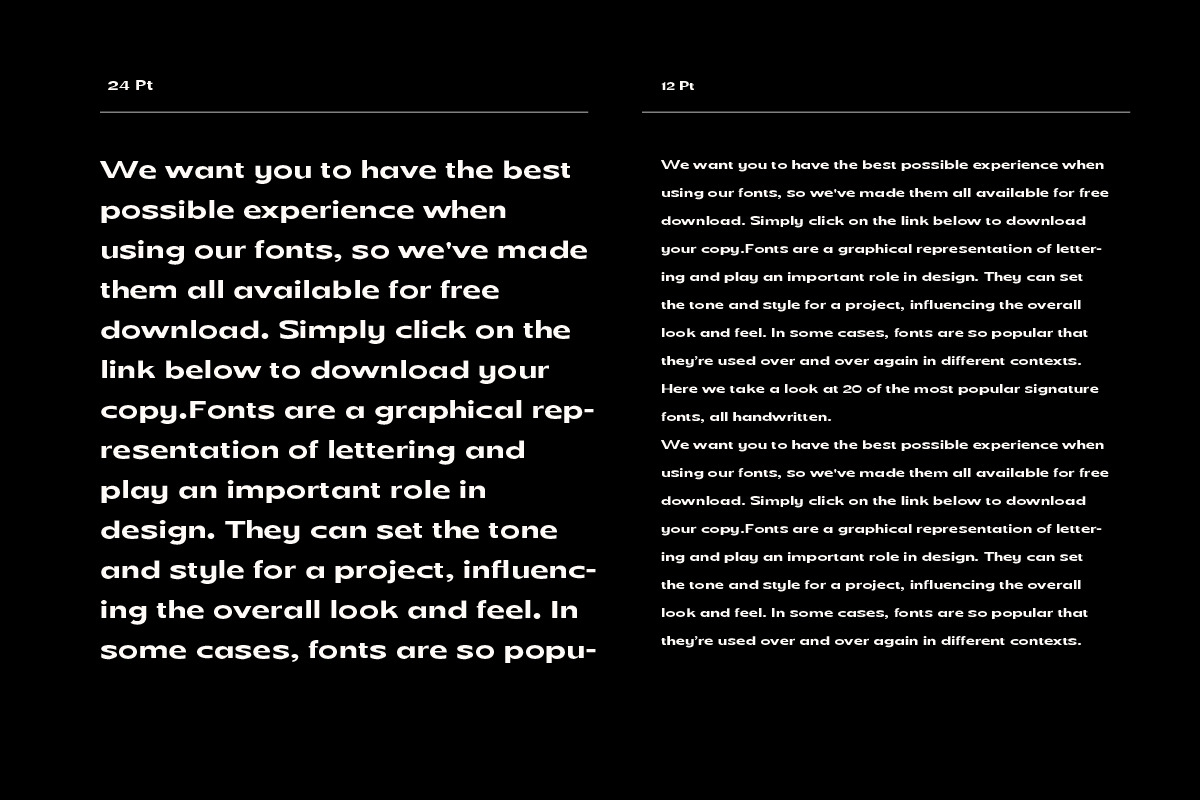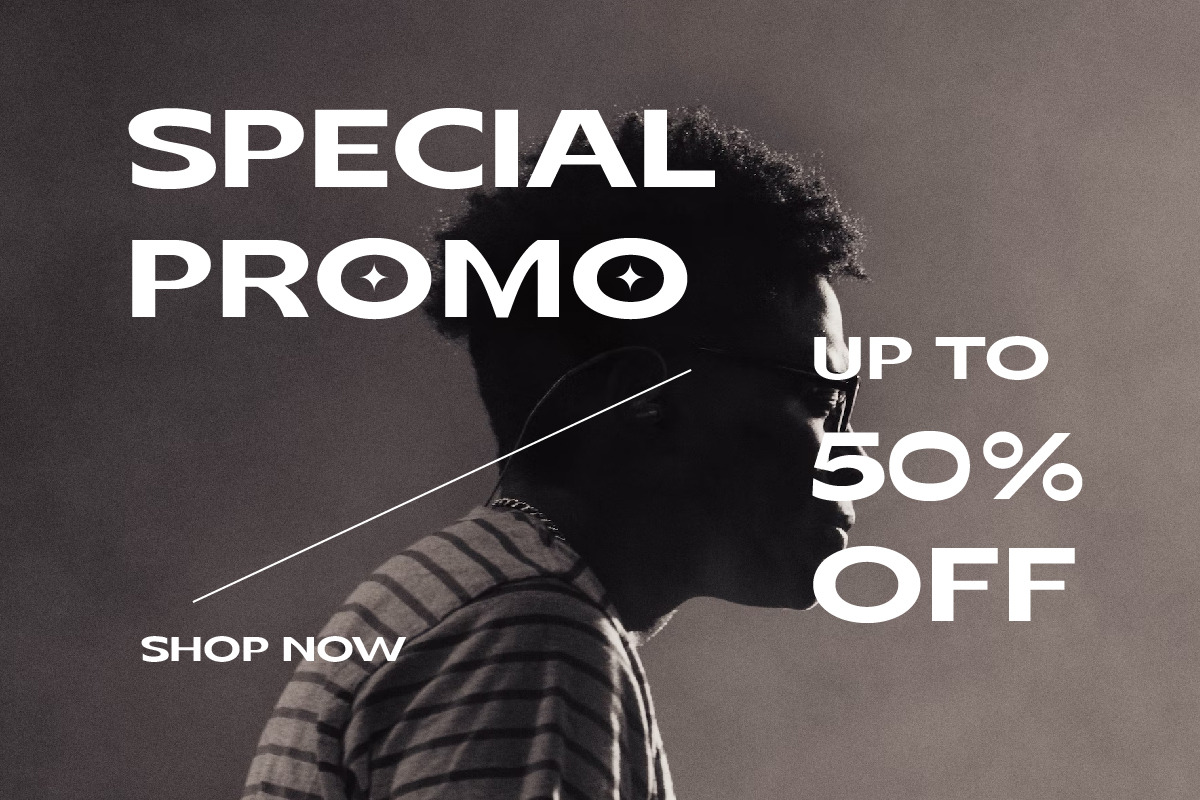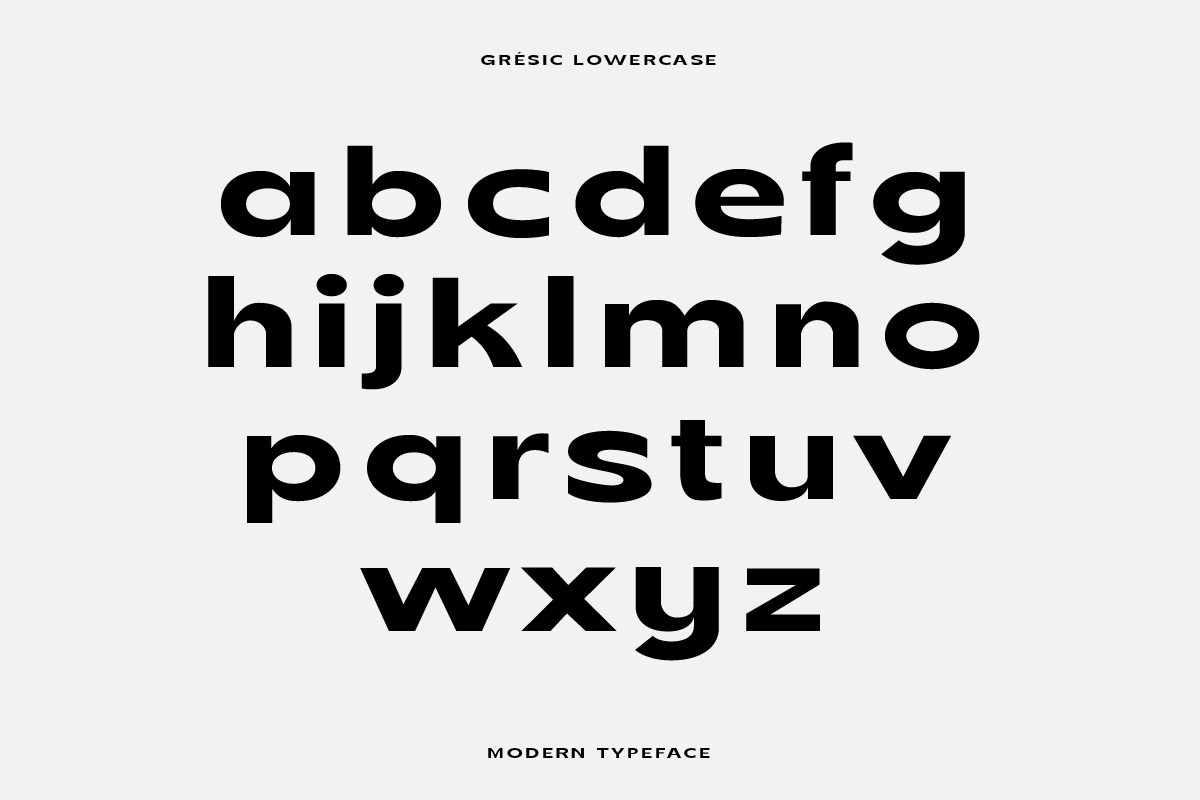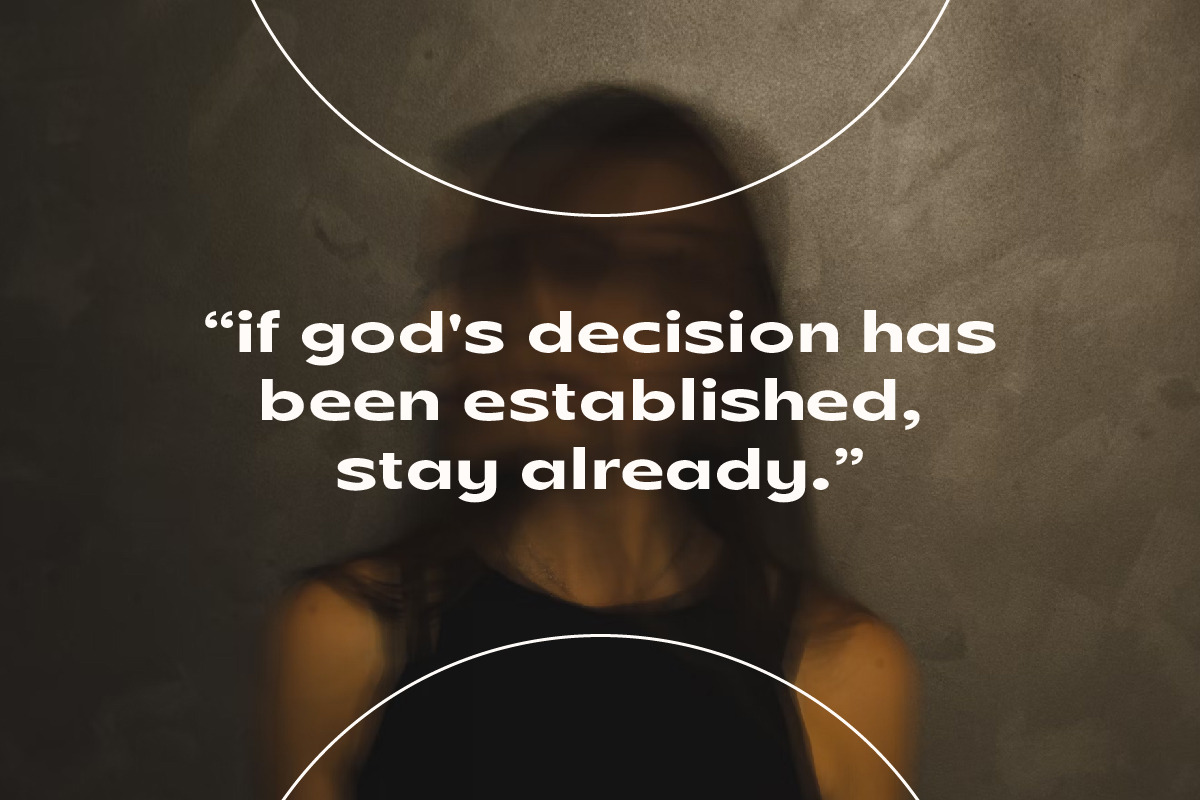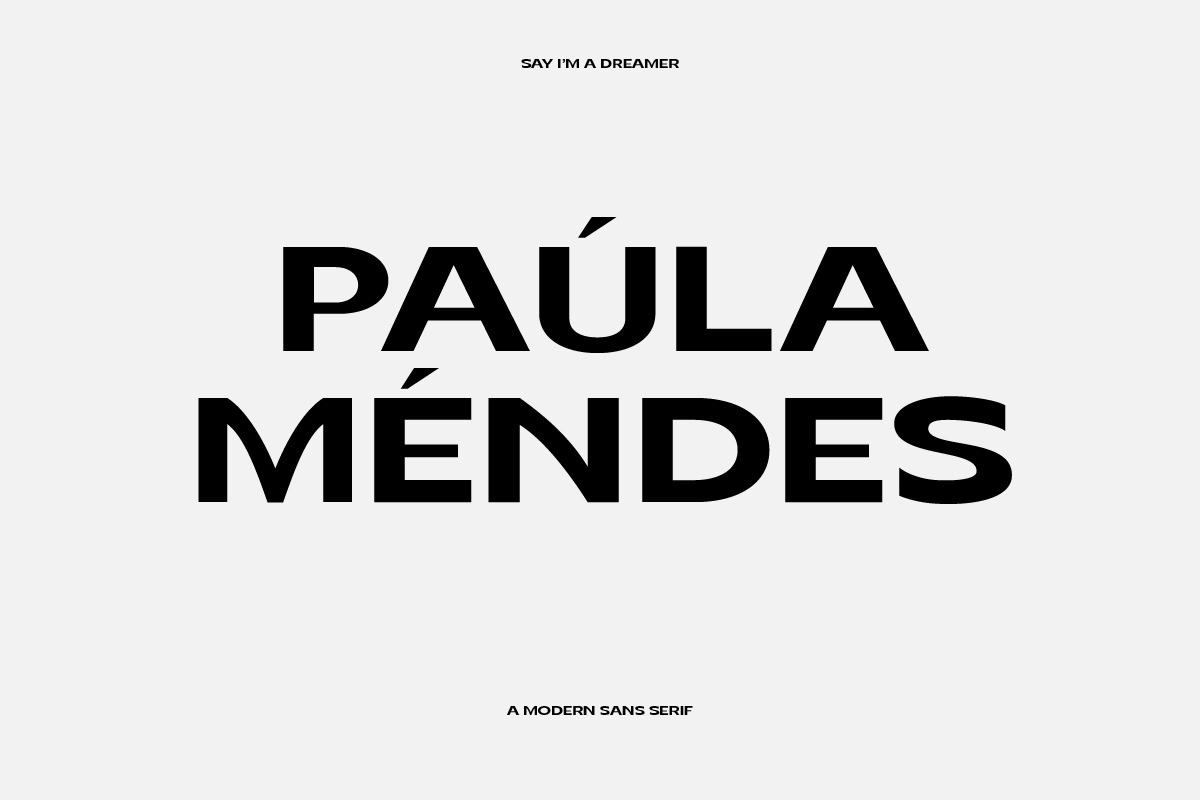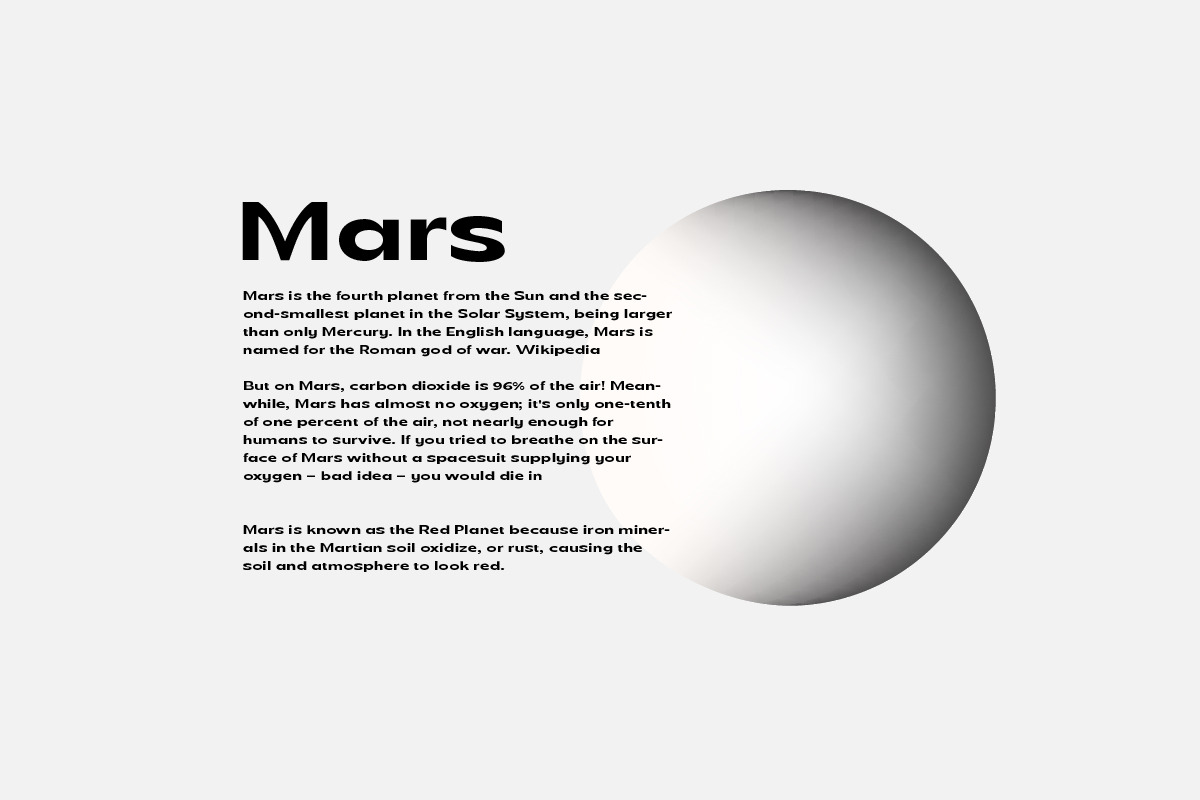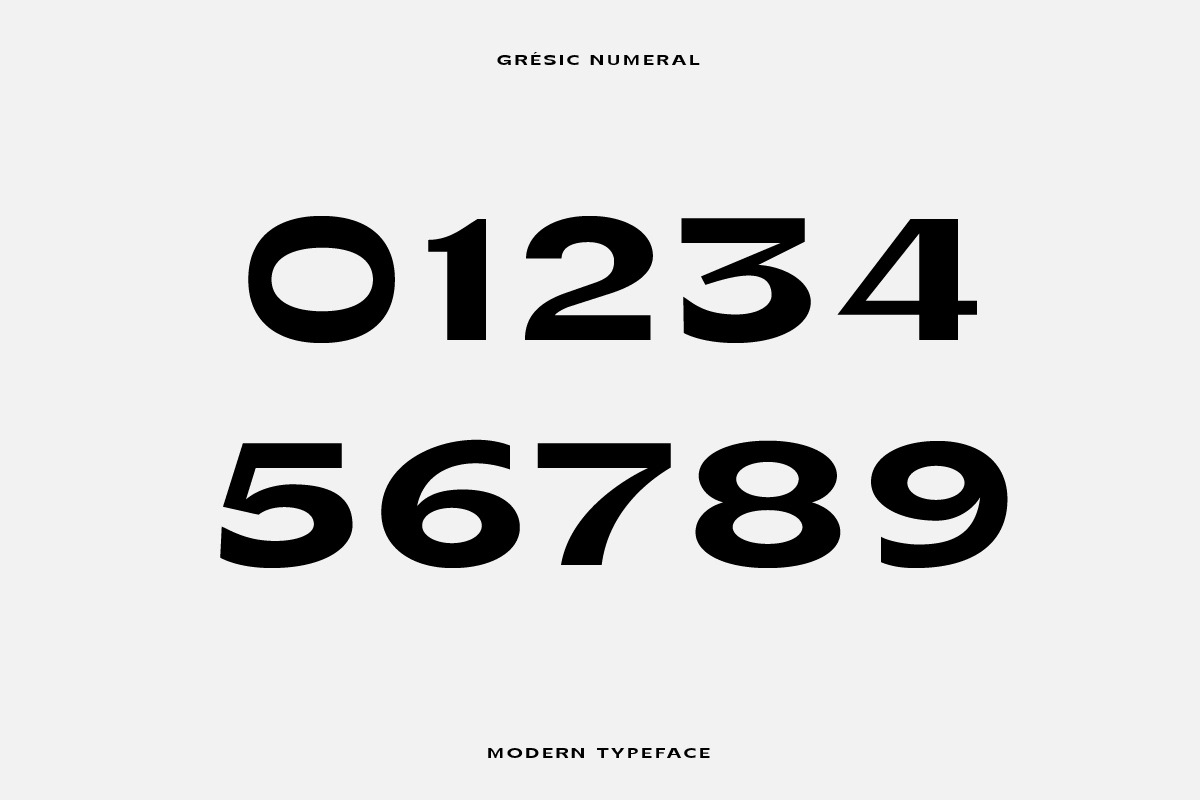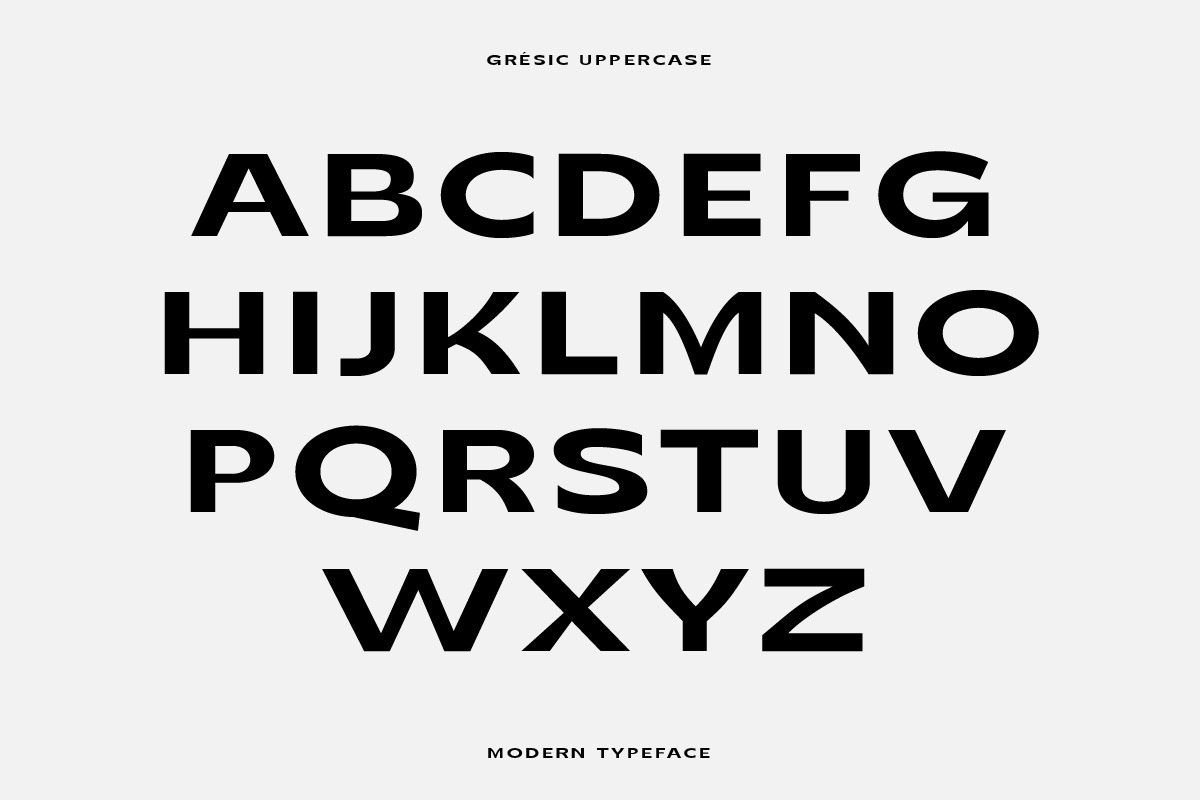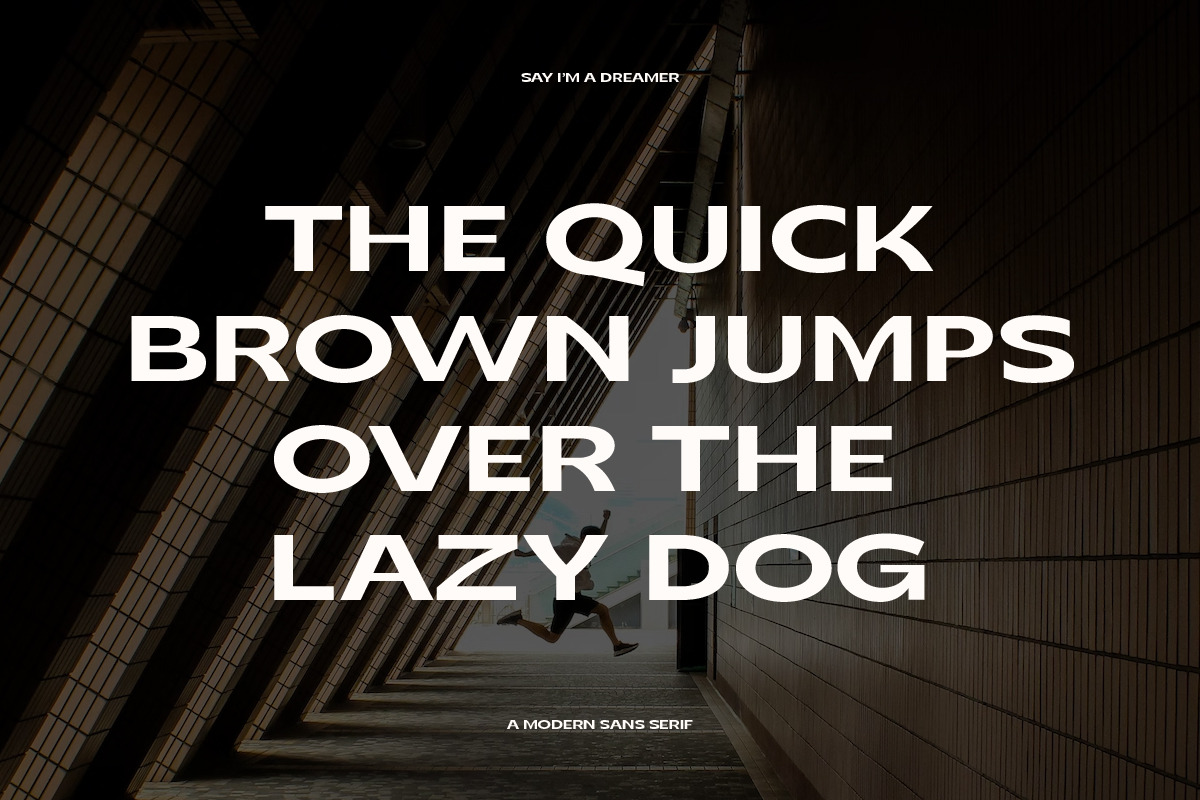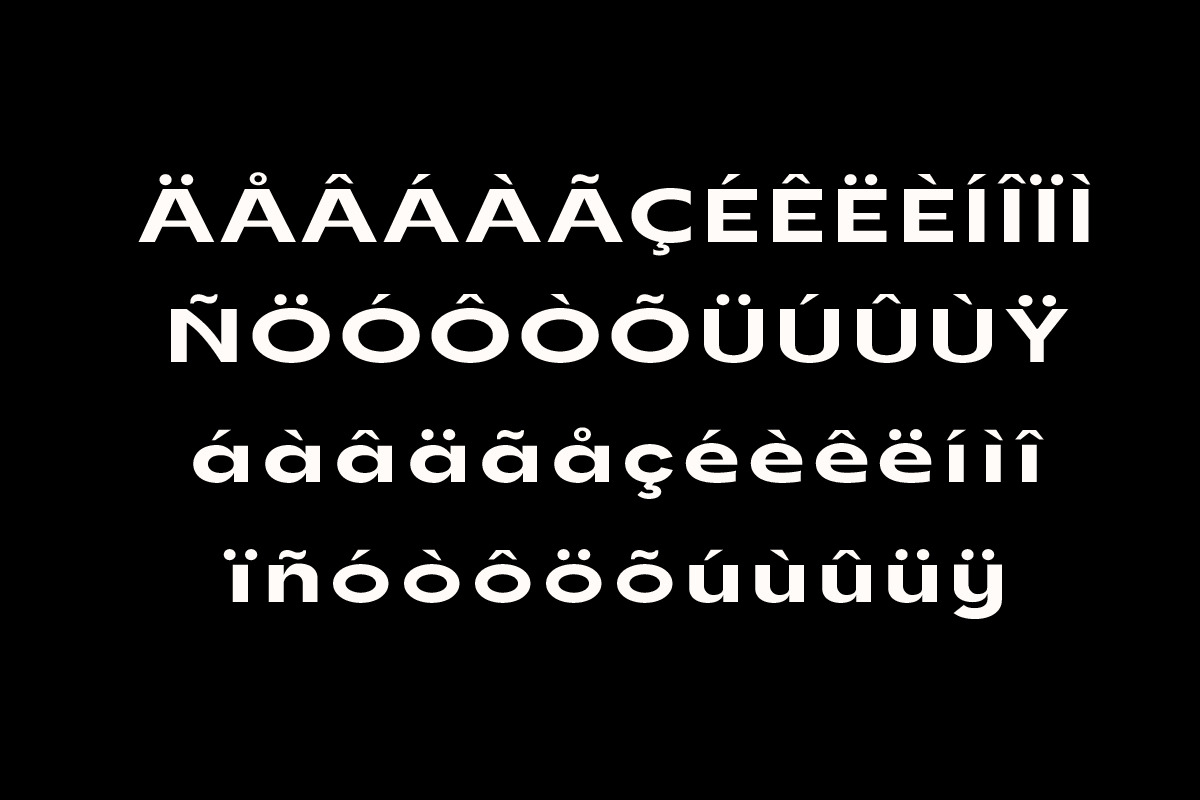
Gresic Modern Sans Serif Font
Gresic is a modern sans serif font, which is very bold, and contrasting, a font with this style is being sought after on the planet for modern design needs such as logo design, application design, website, social media, and others.
Why not try Gresic Modern Font today? It comes in uppercase, lowercase, punctuation, and numbers; no more worrying about anything else.